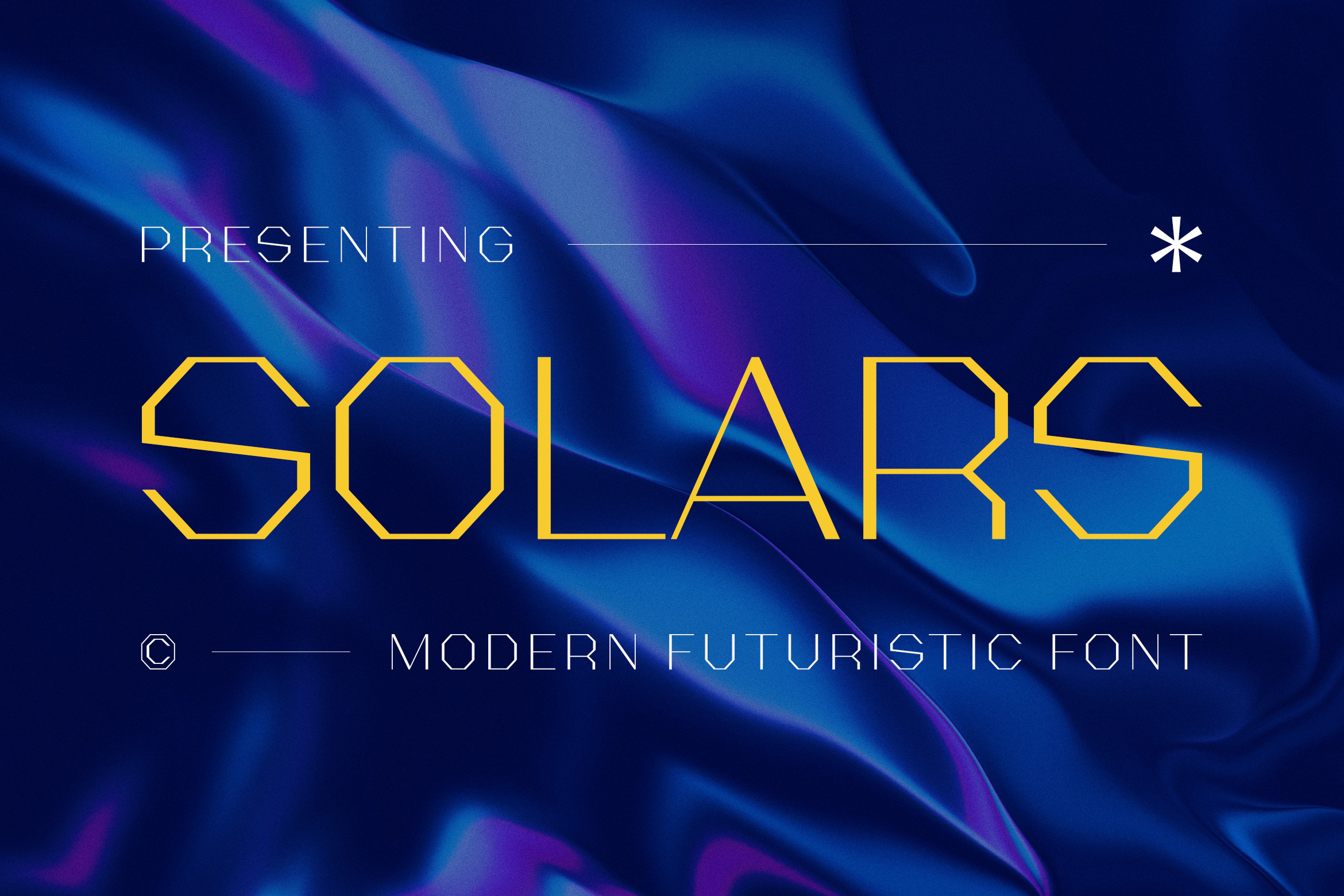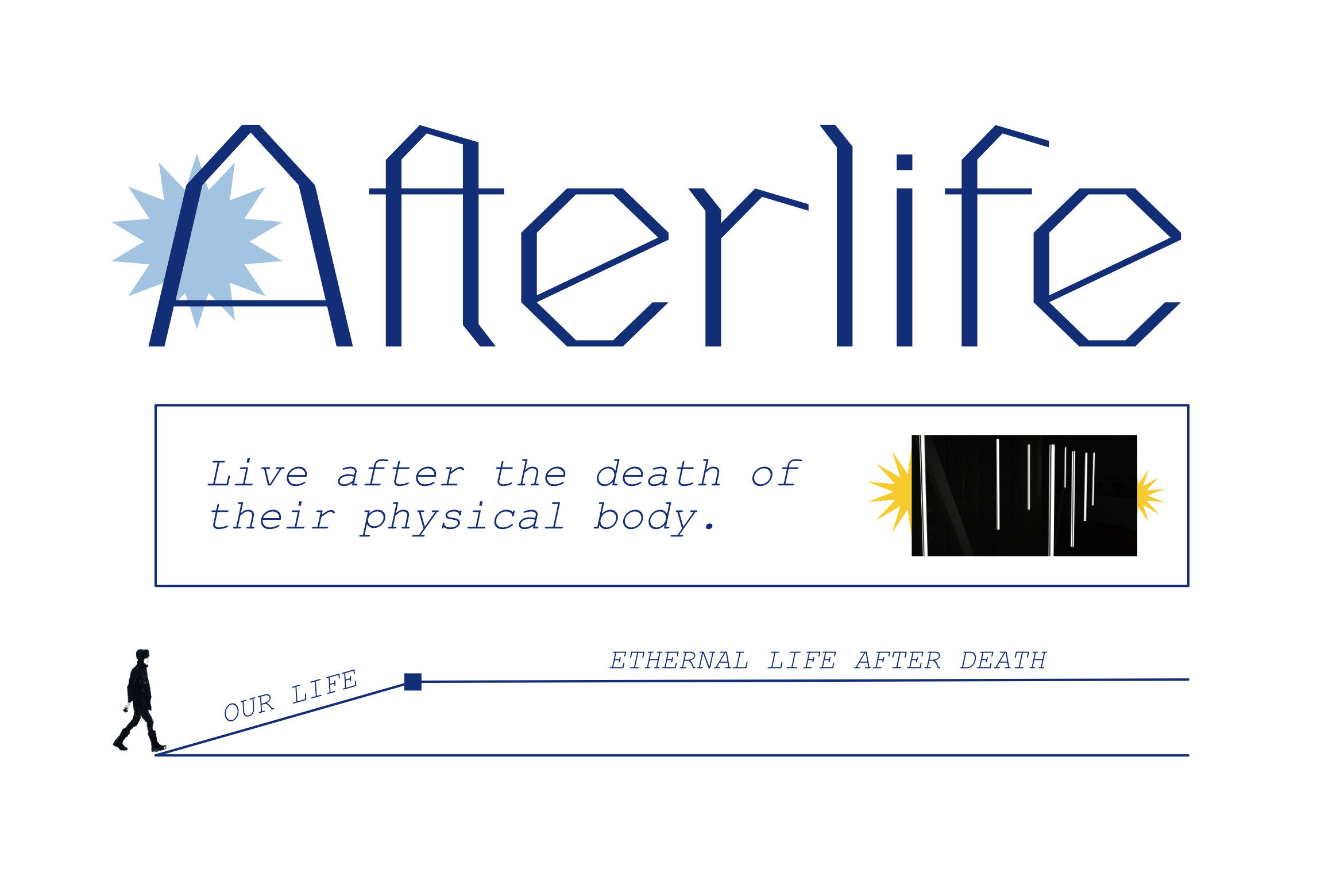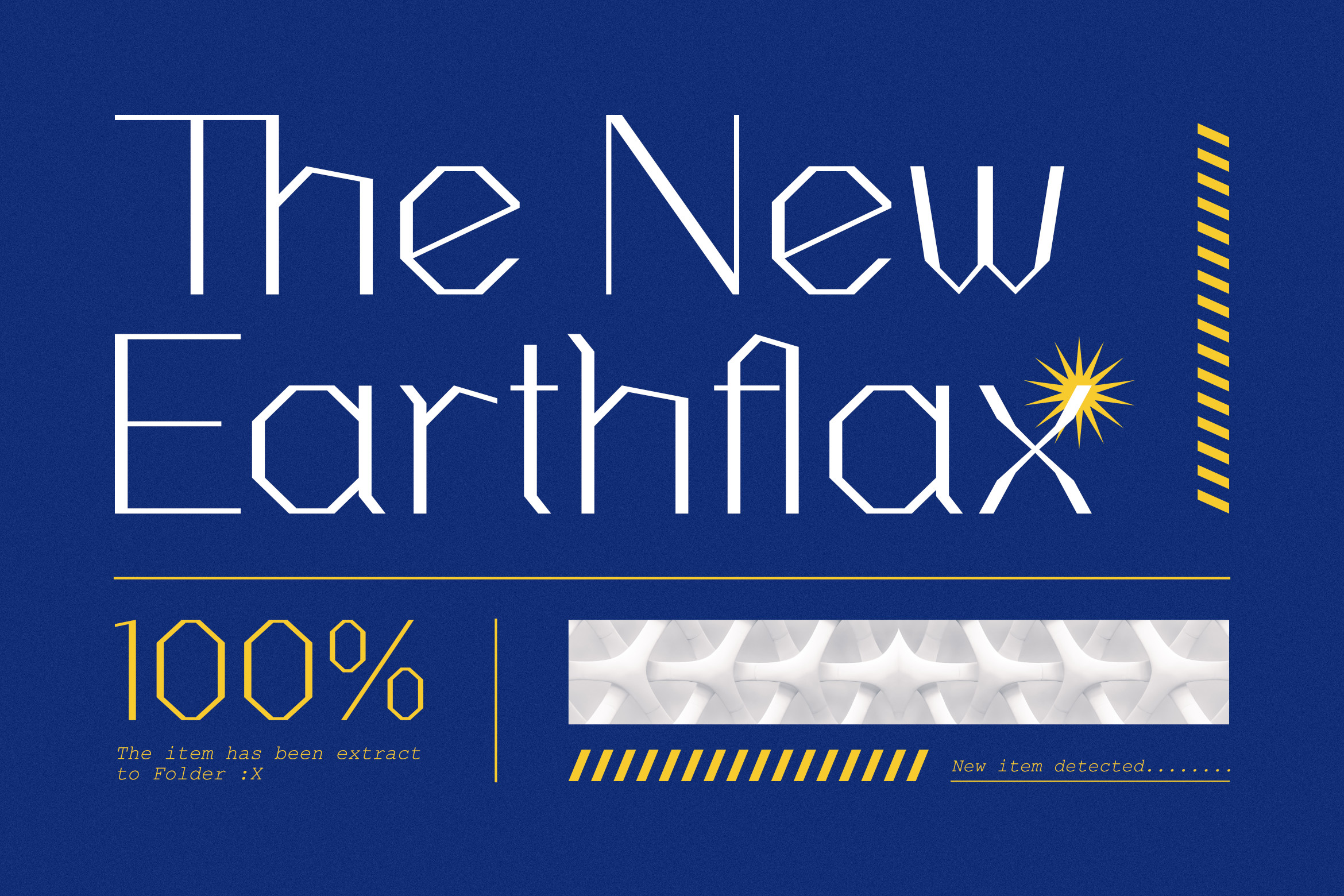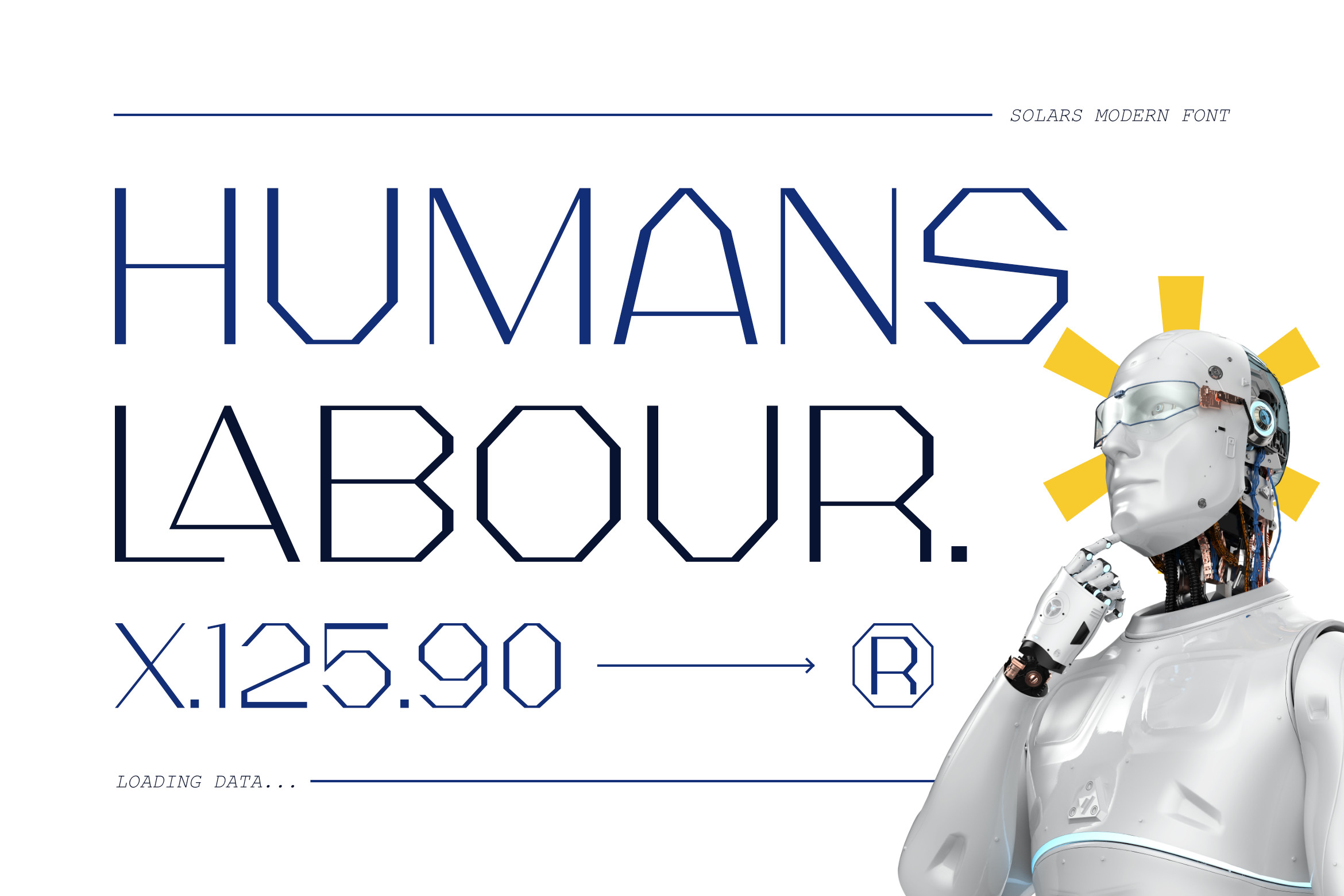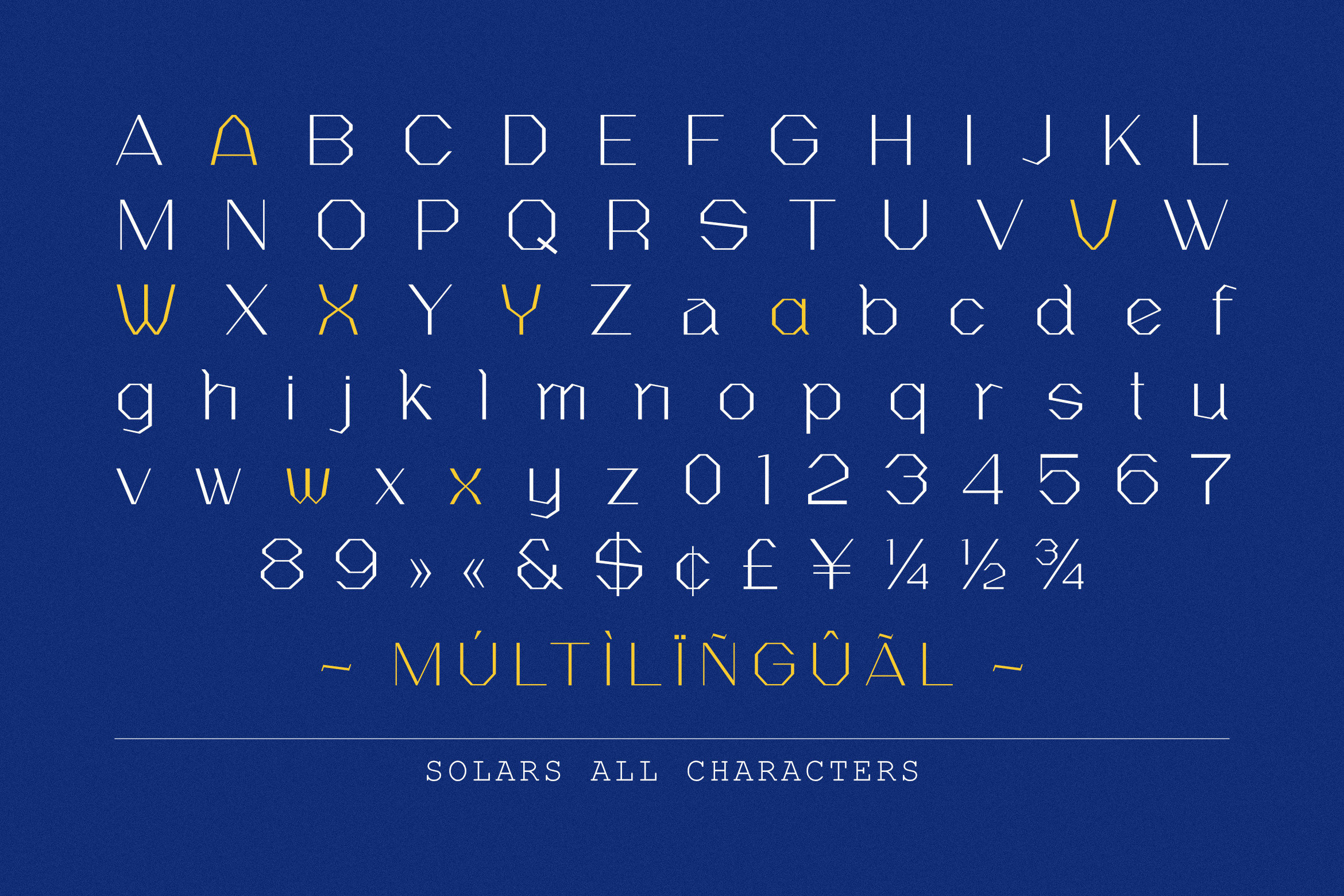
Solars is a modern futuristic font with a distinct geometric aesthetic, perfect for designs that aim to capture a sense of advanced technology, sci-fi inspiration, or forward-thinking innovation. With its sharp angles, clean lines, and unique letterforms, Solars brings a sleek, tech-savvy presence to your projects. Making it ideal for UI interfaces, branding for tech startups, or editorial spreads that require a futuristic edge.
Complete with uppercase and lowercase letters, numerals, symbols, and multilingual support, Solars offers versatility in both display and body applications. Whether you’re crafting a concept design for space exploration, tech hardware, or immersive game interfaces, this font adds a modern, digital charm that feels bold, stylish, and intelligently designed.
Solars